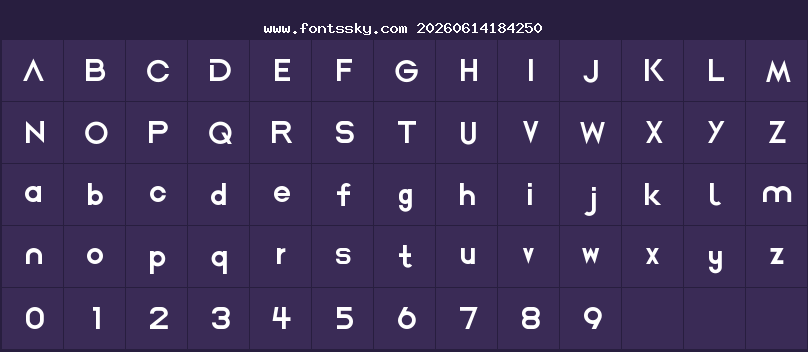
AiDeep Preview
• Font Name: AiDeep
• Font Style: 常规
• Font ID: AiDeep Bold:Version 1.00
• Full Font Name: AiDeep Bold
• Version: Version 1.2 May 21, 2018, initial release
• PostScript Name: AiDeep-Bold
• Character Count: 242
• Designer: RuiMing.Liu
• Manufacturer: 成都知娱文化传播有限公司
• Description: AiDeep字体由成都知娱文化传播有限公司UED团队设计创建
About AiDeep.otf
AiDeep.otf is a modern, elegant sans-serif font designed for ultimate readability and visual harmony. Perfect for branding, headlines, web design, and print materials.